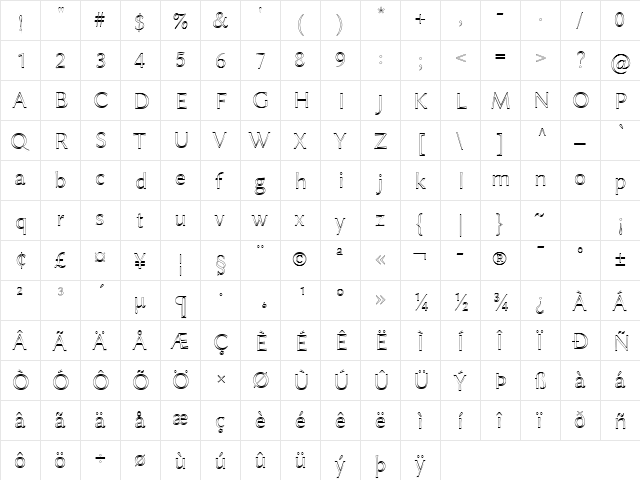
Linux Biolinum Outline Regular
| Foundry | Philipp H. Poll |
| Designer | Philipp H. Poll |
Design Context for Linux Biolinum Outline Typeface
Linux Biolinum Outline is built around its visual character rather than neutral utility — its distinctive forms are designed to make an impression at display sizes.